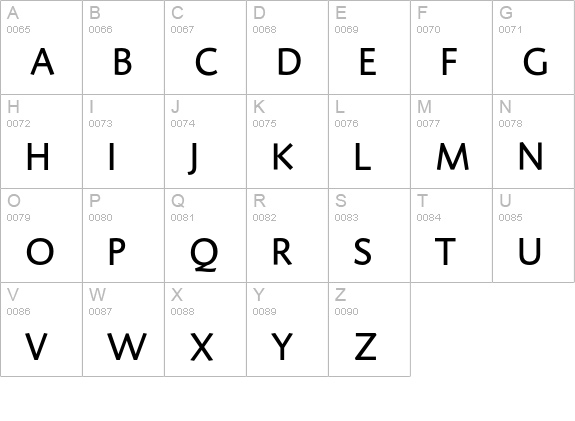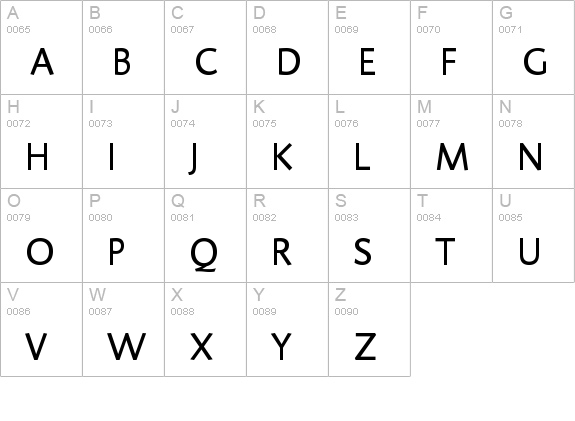
DTLCaspariST is a modern and elegant font that exudes sophistication and style. With its clean lines and sleek design, this typeface is perfect for a wide range of projects, from branding to web design. The versatility of DTLCaspariST makes it an ideal choice for both print and digital media. What sets DTLCaspariST apart is not only its timeless appeal, but also the fact that it is available for free download at FontsMarket.com. This means that you can easily access this high-quality font without any cost, making it a valuable addition to your font library. Whether you are a professional designer or a casual user looking to elevate your projects, DTLCaspariST is a versatile and stylish font that will surely make a statement.